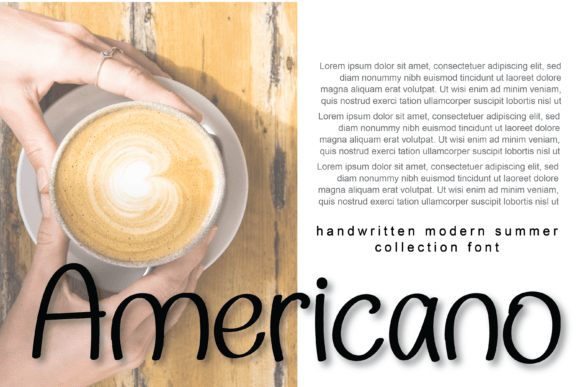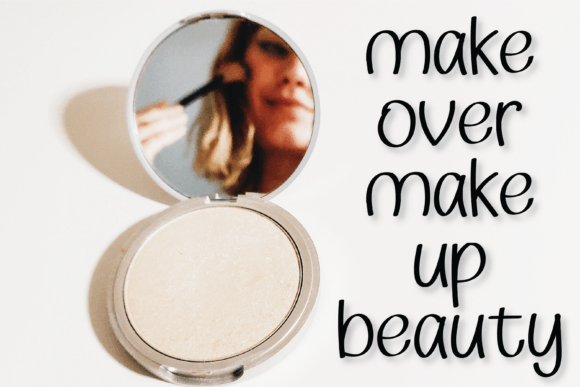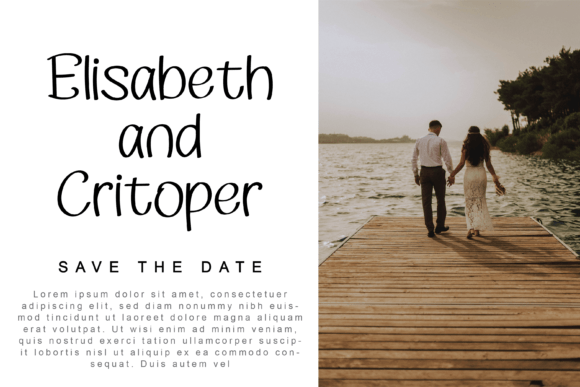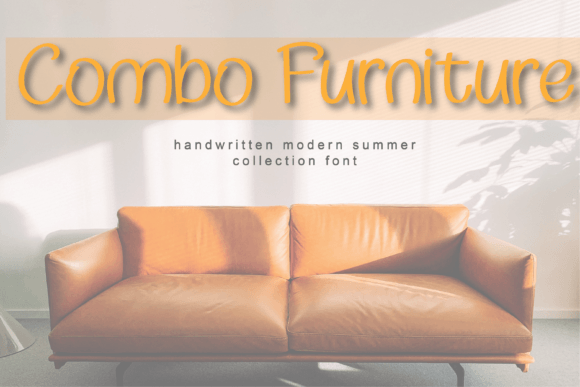
Cruel Summer Font: Elevate Your Designs with Elegance and Sophistication
In the world of typography, fonts play a crucial role in conveying the tone and aesthetic of a design. For those seeking an elegant and modern touch, the Cruel Summer Font is an excellent choice. This beautiful, handwritten font is perfect for designers and crafters looking to add a touch of sophistication to their projects.
What is Cruel Summer Font?
Cruel Summer Font is a stylish, handwritten typeface that exudes elegance and refinement. Its modern design makes it an ideal choice for a wide range of applications, from wedding invitations and business cards to logos, quotes, and advertisements. The font’s unique charm and character are sure to leave a lasting impression on your audience.
Key Features of Cruel Summer Font
- Elegant Handwritten Design: Cruel Summer Font boasts a beautiful, handwritten design that adds a touch of sophistication to any project.
- Modern Impression: The font’s modern aesthetic ensures that your designs look fresh and contemporary.
- Versatile: Cruel Summer Font is perfect for a wide range of applications, including wedding invitations, thank you cards, business cards, logos, products, quotes, greeting cards, advertisements, and more.
- Easy to Read: The font’s clear and legible design makes it easy to read, ensuring that your message is conveyed effectively.
Uses of Cruel Summer Font
Cruel Summer Font is an incredibly versatile typeface that can be used in various design projects. Here are some popular uses of this beautiful font:
- Wedding Invitations: Add a touch of elegance to your wedding invitations with Cruel Summer Font.
- Business Cards: Create a lasting impression with stylish business cards featuring Cruel Summer Font.
- Logos: Use Cruel Summer Font to create a unique and memorable logo for your brand.
- Quotes and Greeting Cards: Add a personal touch to your quotes and greeting cards with this beautiful font.
- Advertisements: Make your advertisements stand out with the elegant and modern design of Cruel Summer Font.
Benefits of Using Cruel Summer Font
Using Cruel Summer Font in your designs offers several benefits, including:
- Unique and Memorable: The font’s unique design ensures that your projects stand out and leave a lasting impression.
- Elegant and Sophisticated: Cruel Summer Font adds a touch of elegance and sophistication to any design.
- Versatile: The font’s versatility makes it suitable for a wide range of applications.
- Easy to Read: The font’s clear and legible design ensures that your message is conveyed effectively.
Tips for Using Cruel Summer Font
To get the most out of Cruel Summer Font, follow these tips:
- Pair with Other Fonts: Experiment with pairing Cruel Summer Font with other fonts to create a unique and visually appealing design.
- Adjust Font Size and Style: Adjust the font size and style to suit your design needs.
- Use in Combination with Images: Use Cruel Summer Font in combination with images to create a stunning visual effect.
Cruel Summer Font is an elegant and modern handwritten font that is perfect for designers and crafters looking to add a touch of sophistication to their projects. Its versatility, unique design, and ease of use make it an excellent choice for a wide range of applications. Whether you’re creating wedding invitations, business cards, logos, or advertisements, Cruel Summer Font is sure to elevate your designs and leave a lasting impression on your audience.